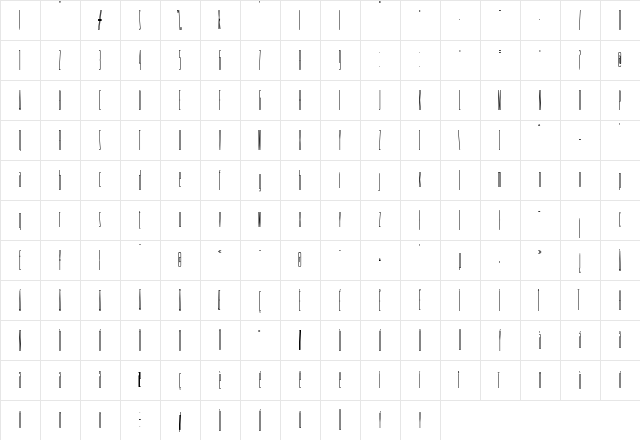
tallest Regular
| Foundry | francesco canovaro |
| Designer | Francesco Canovaro |
Design Context for tallest Typeface
tallest is a composed and adaptable typeface that performs quietly and consistently across a wide range of design contexts.